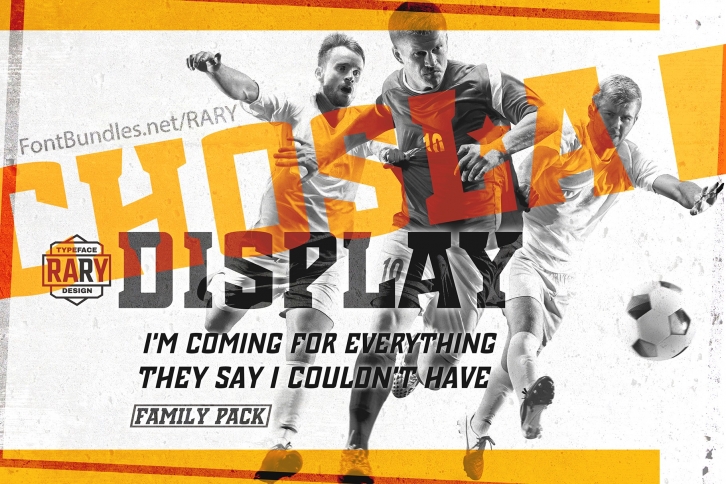
Chosla | Sports font family bundle. Download
Chosla is a trendy and unique font with an authentic style. It was designed by RARY and it's a great choice for creative people who need such a font. It was released on March 12, 2019 and the file size is 18.50 MB. Chosla will add an organic vibe to any design idea!